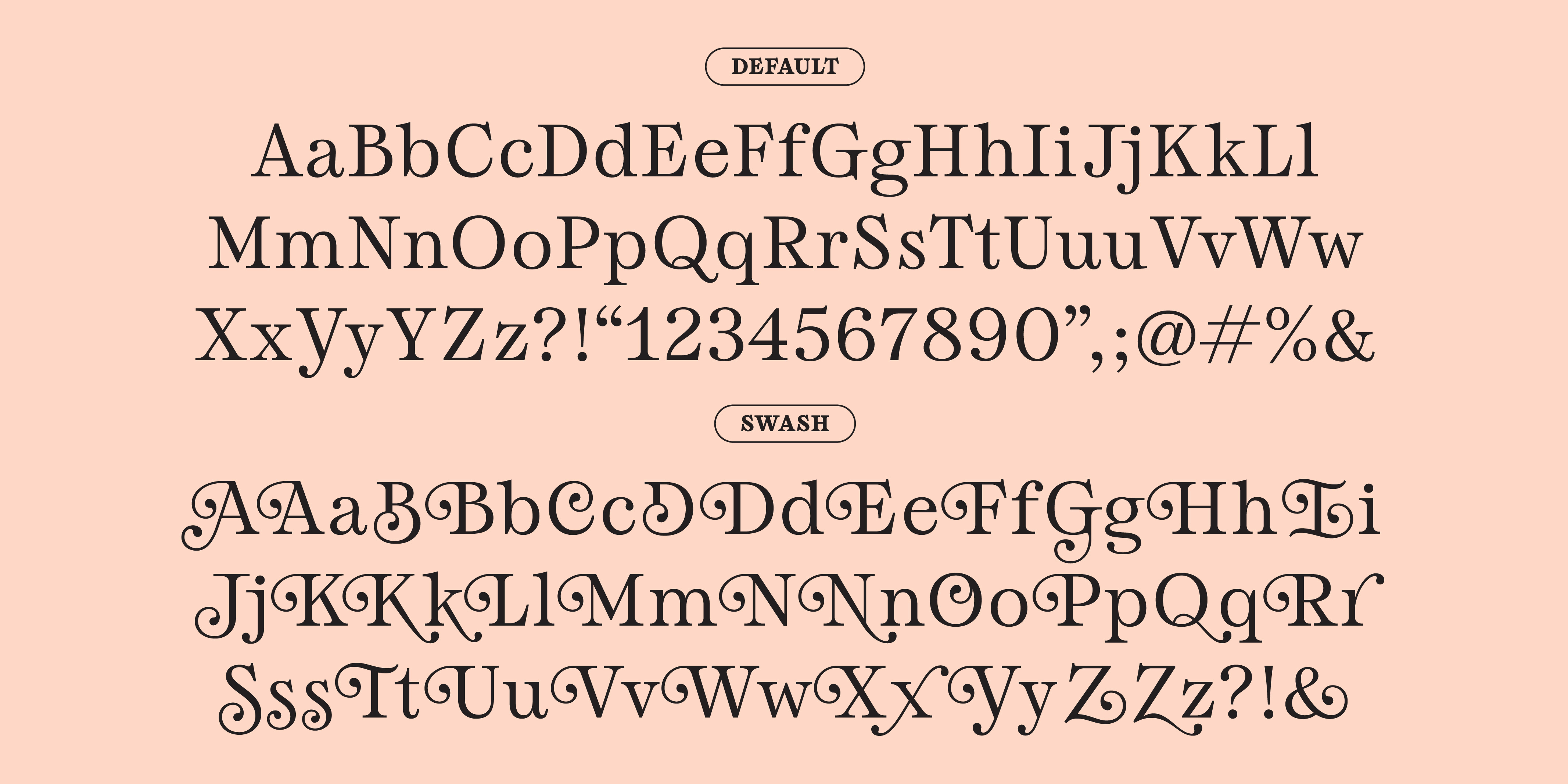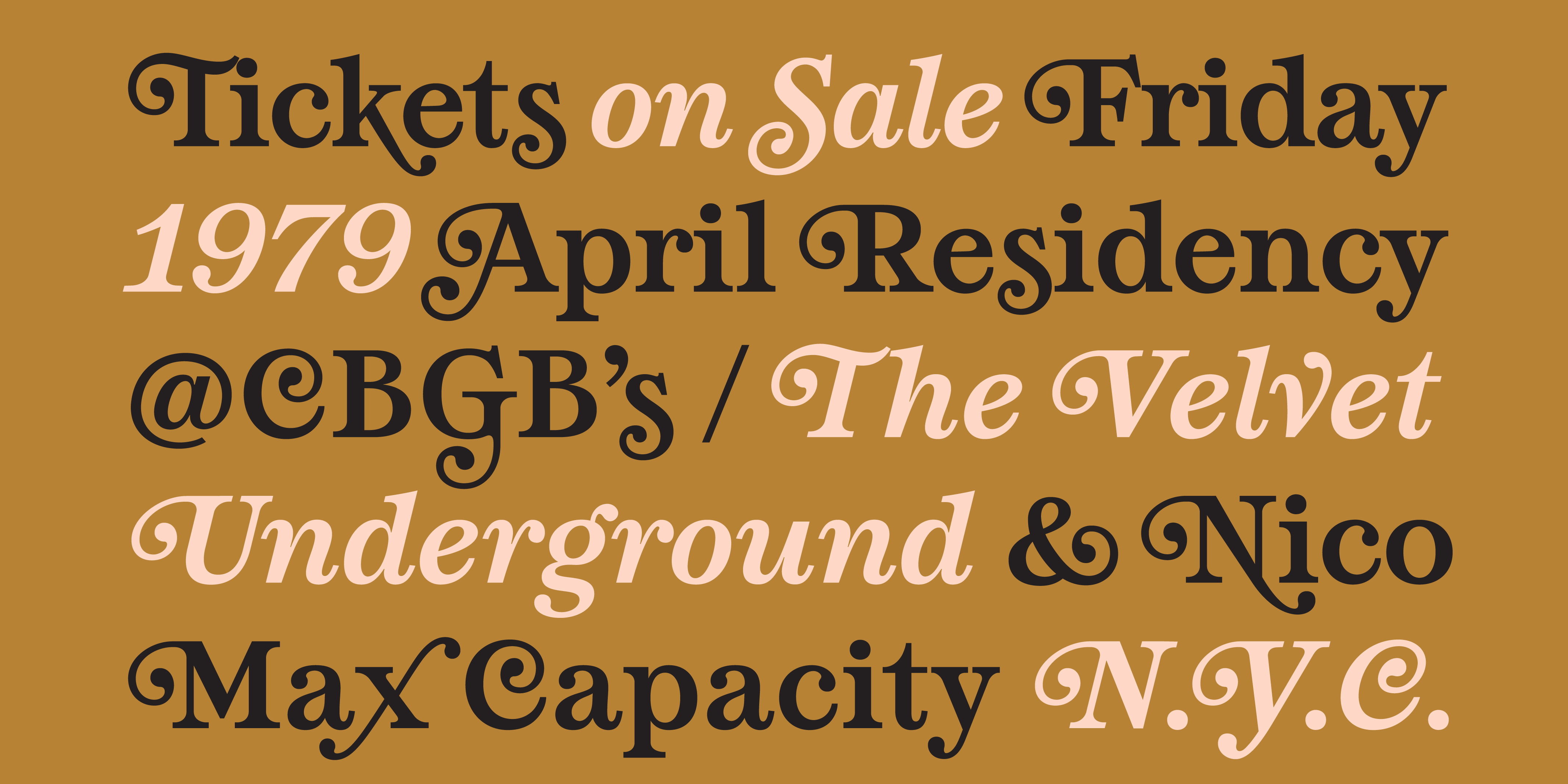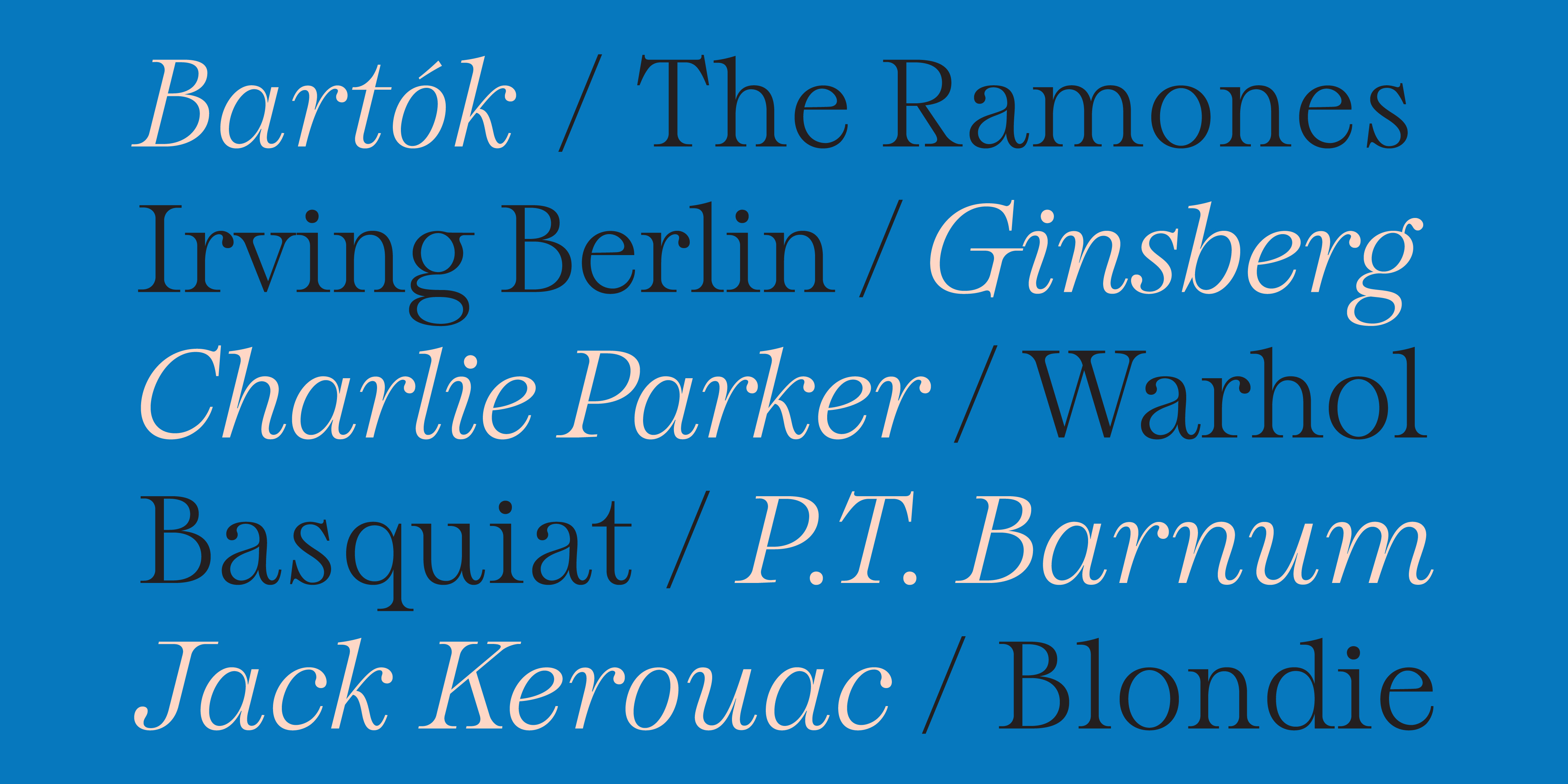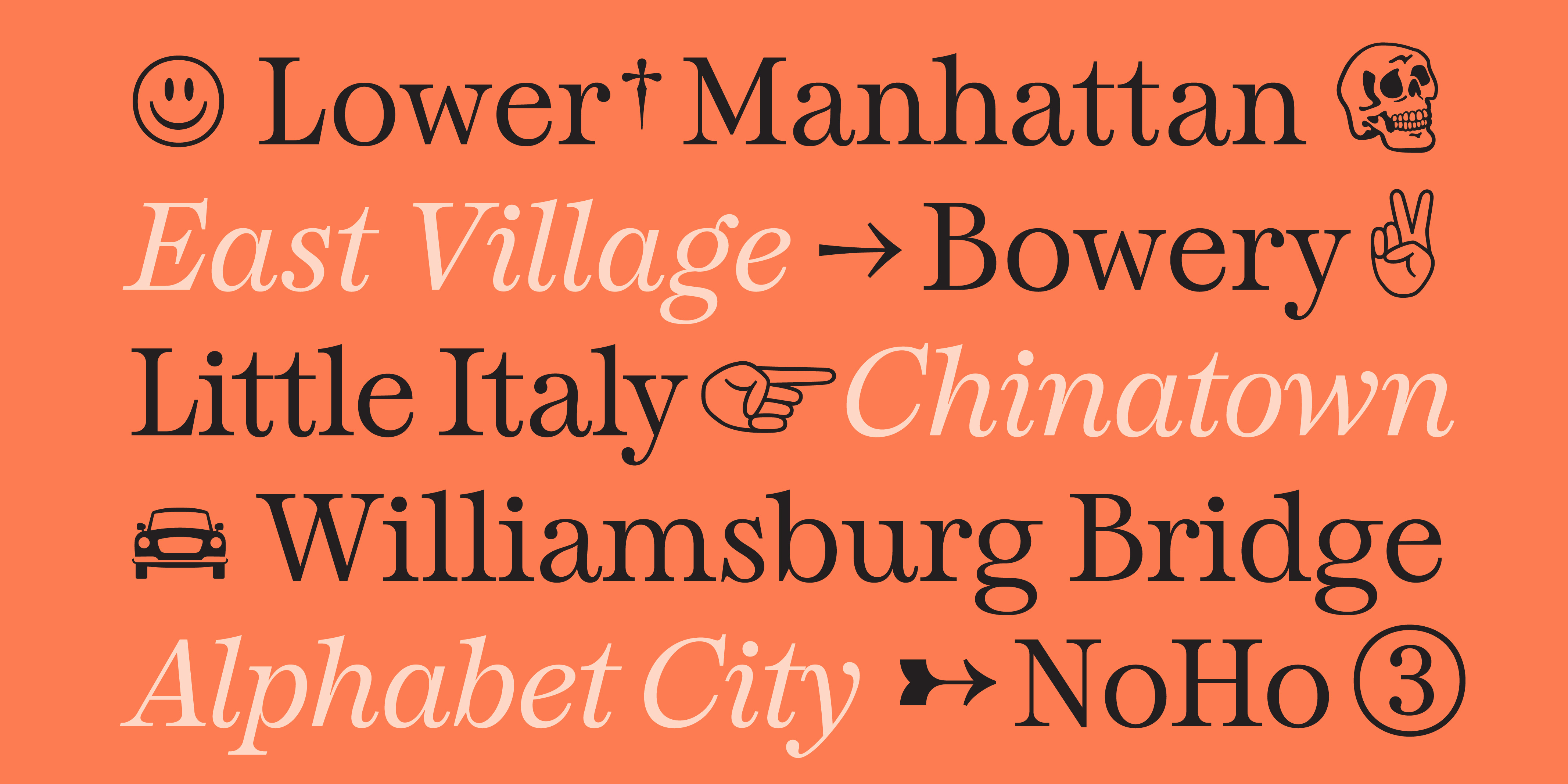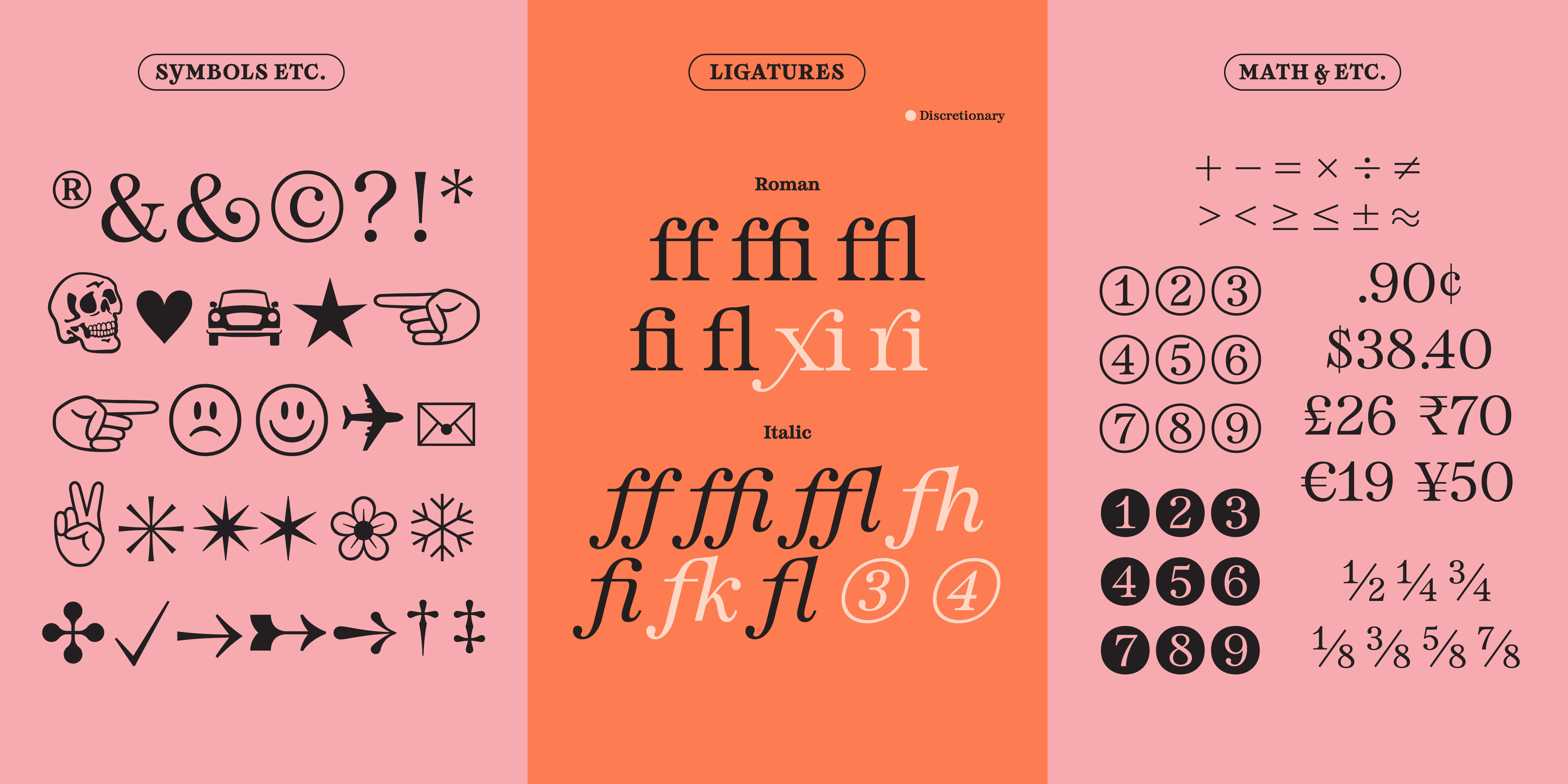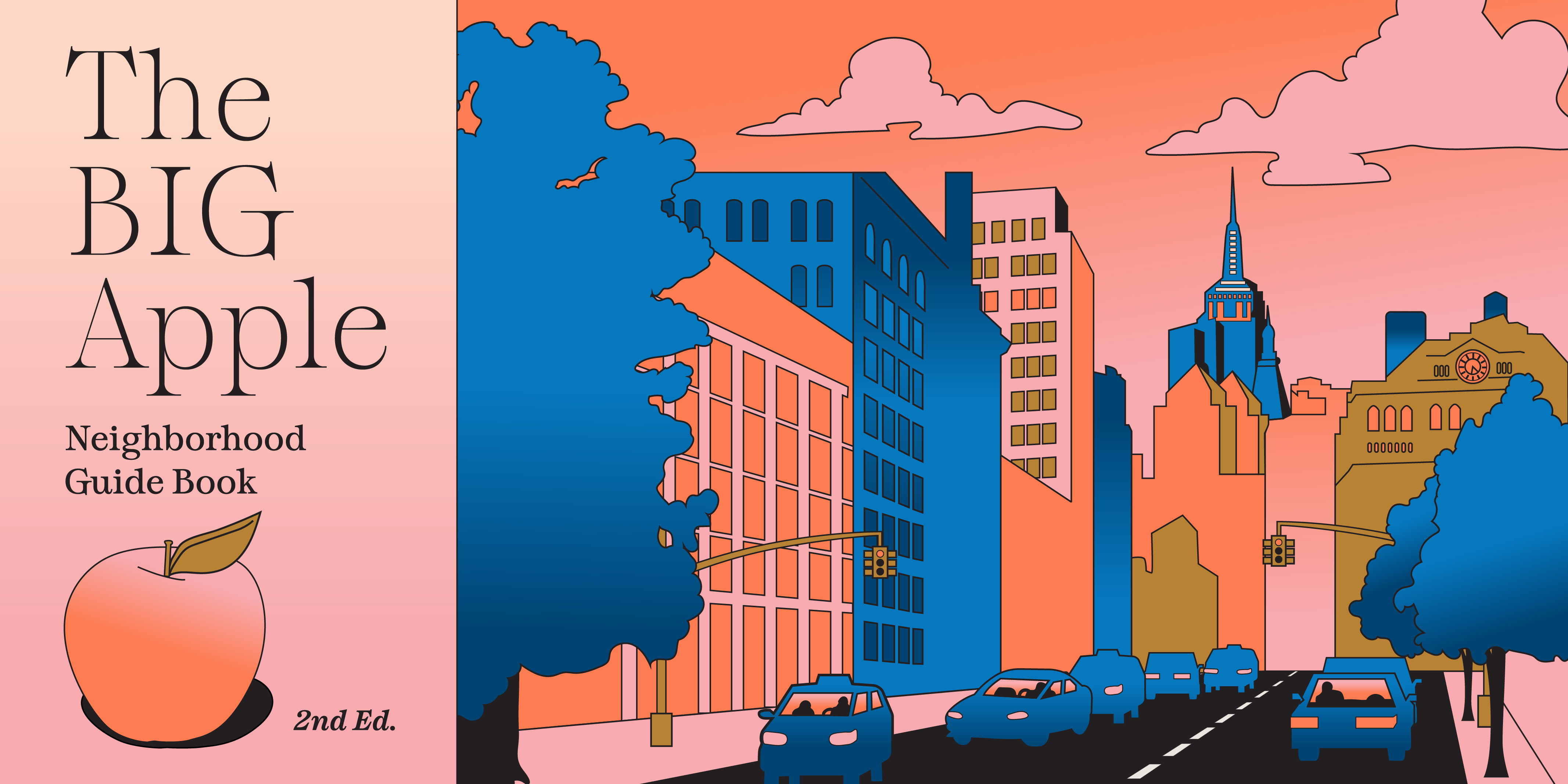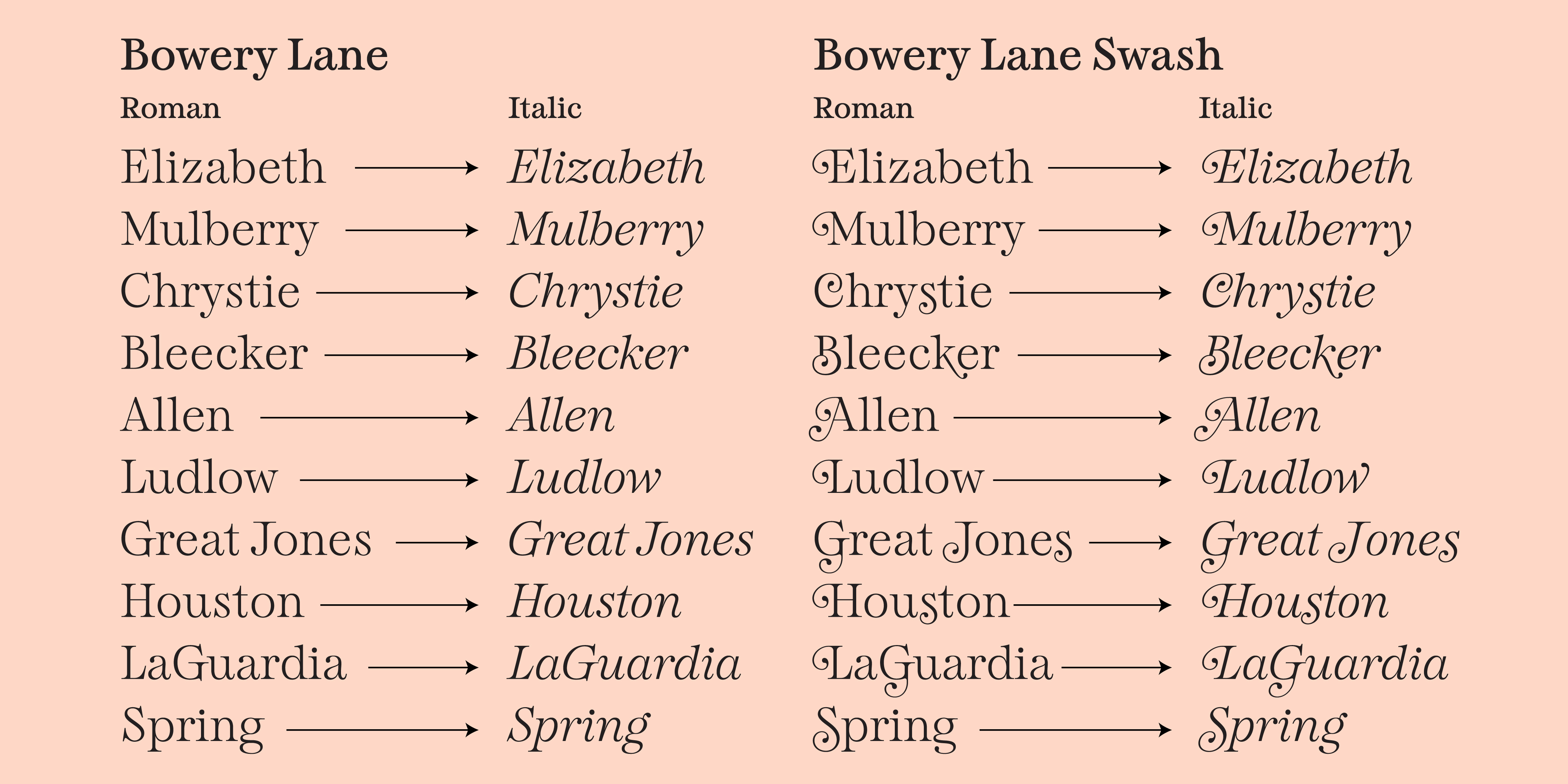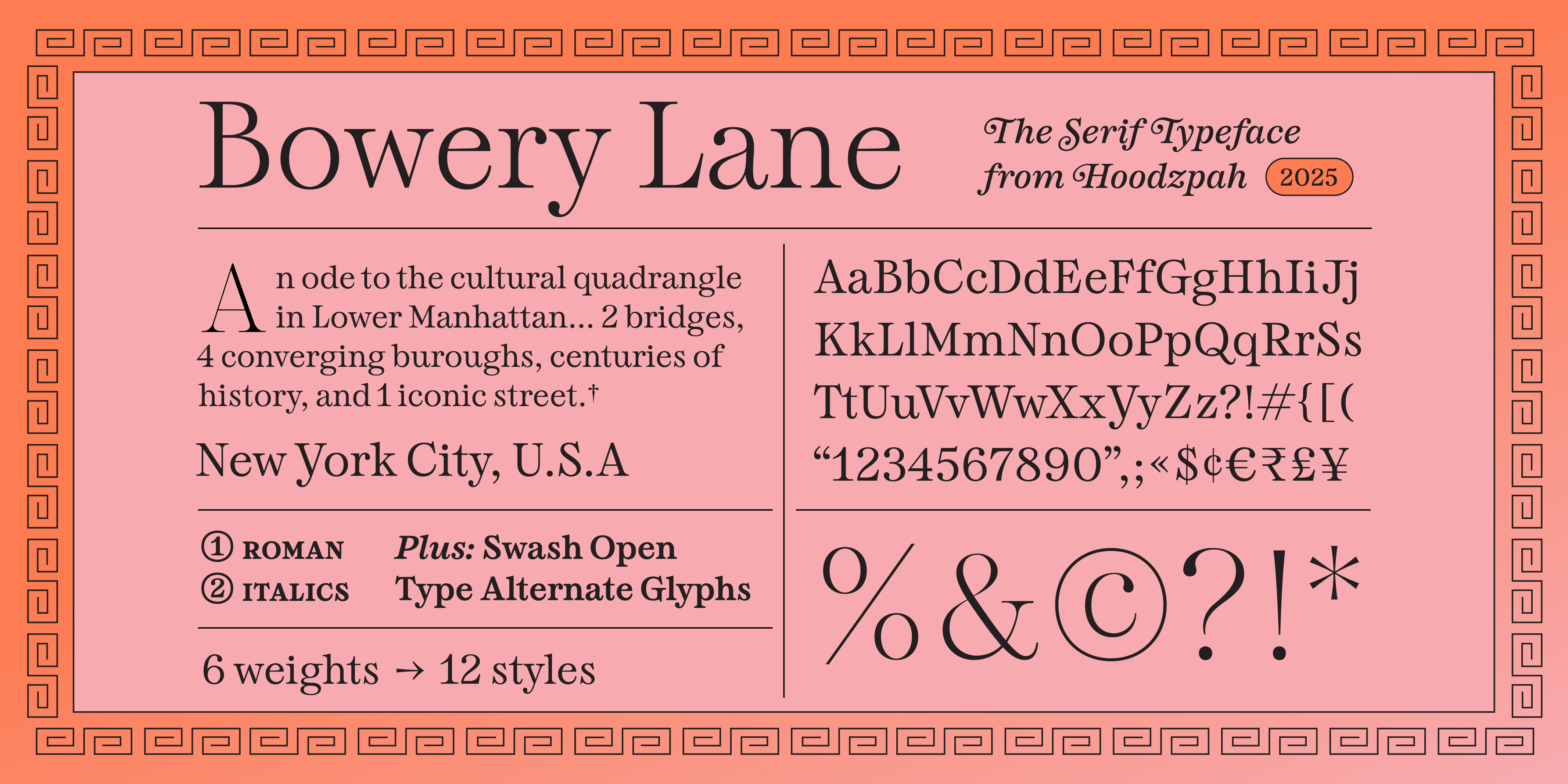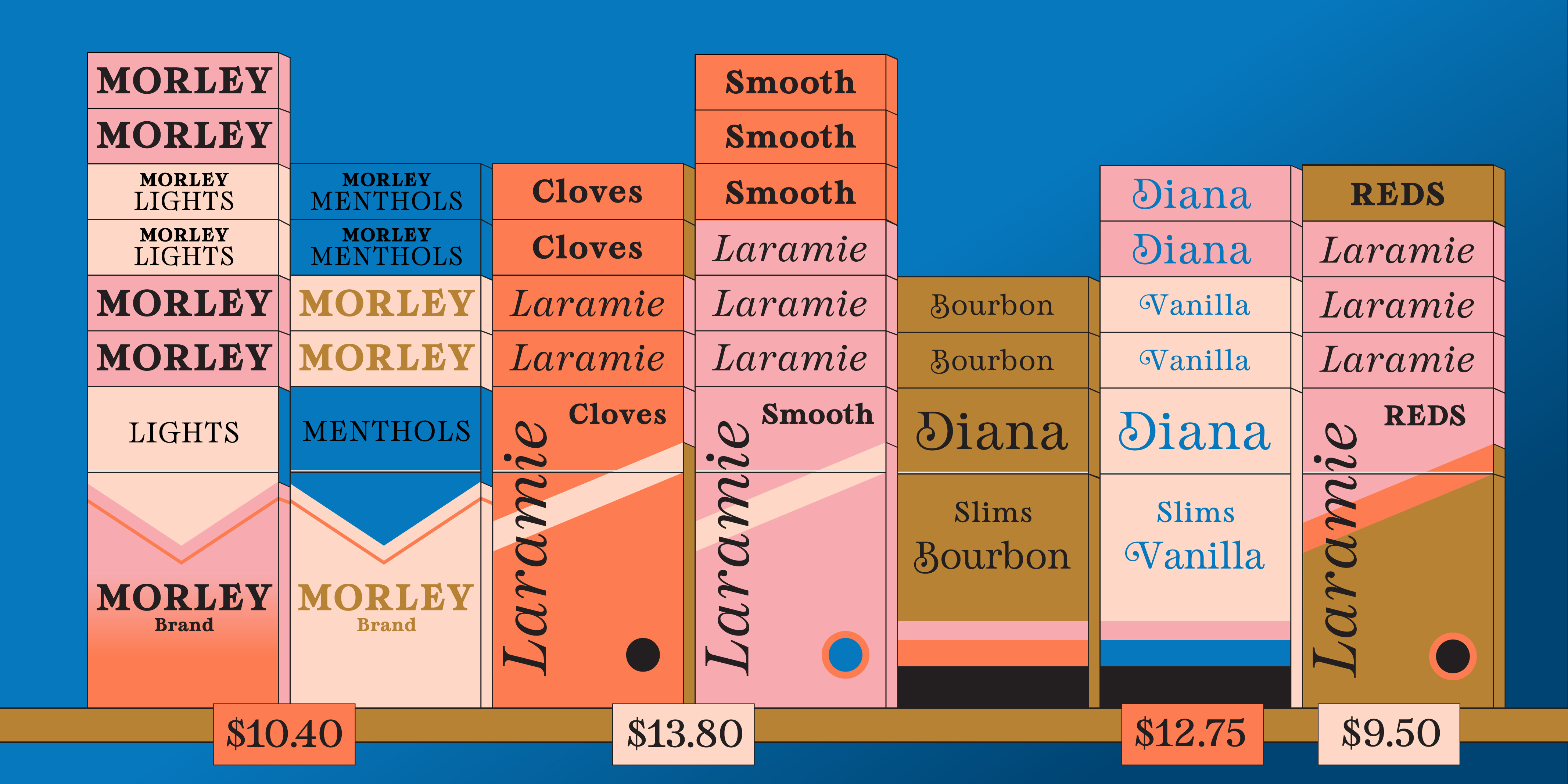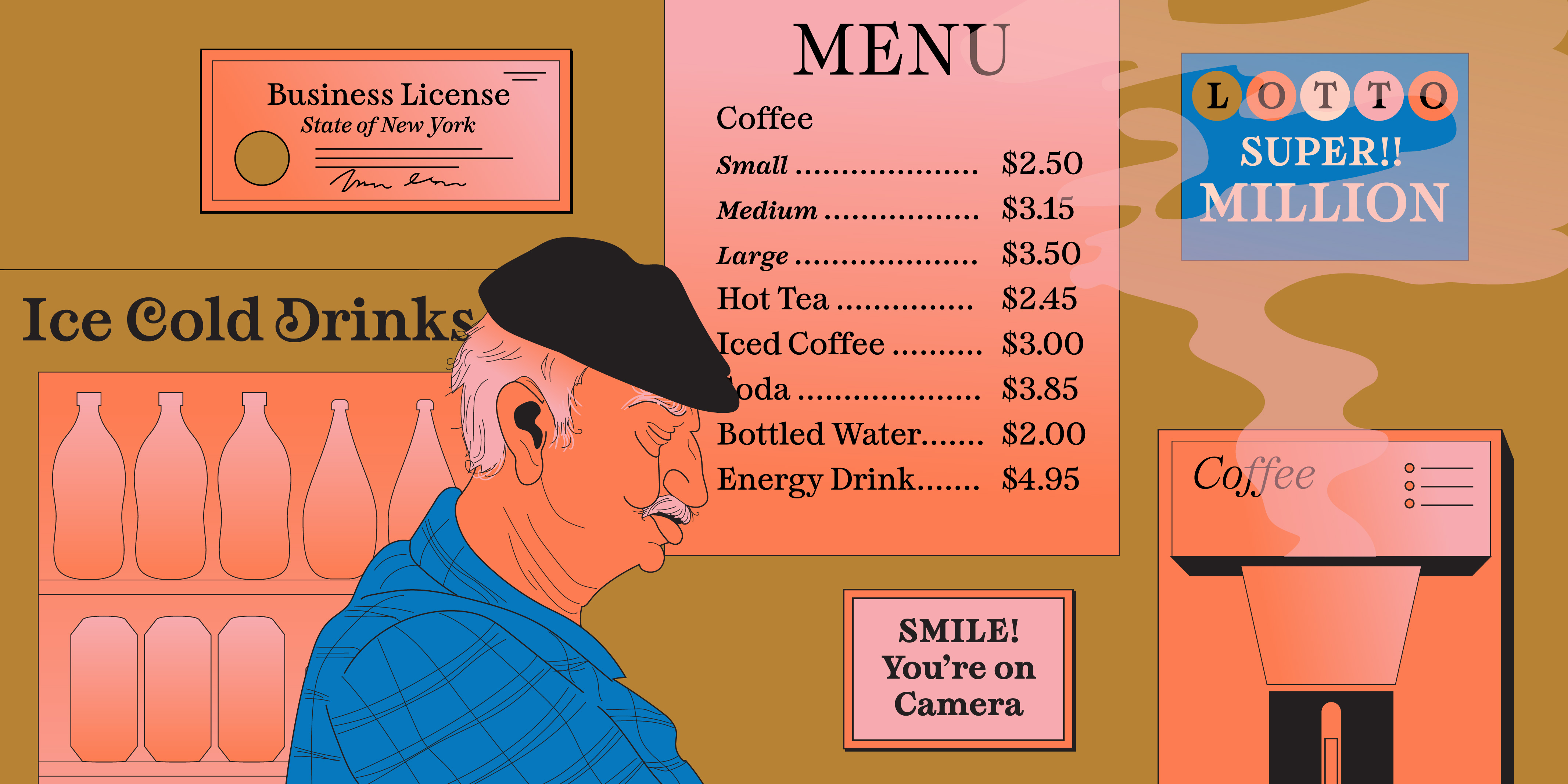
Bowery Lane
Serif
Somewhere between a Scotch Modern, Transition, and Slab serif—with curl swash alts to boot!
When you use the default character set of Bowery Lane font, it looks confident, classic, and bold, like the area of New York City the font gets its name from. The moderate contrast makes the font very usable, even at smaller sizes. But just when you think you know what Bowery is about, you turn on the curl swash alternates and feel as if you’ve stepped into the New York of You’ve Got Mail. Bowery, NYC, is a cultural quadrangle, at the intersection of four boroughs and two bridges, with centuries of history and reinventions, all emanating from one iconic street. This font aims to have a similar breadth of character and broad usability.
Bowery Lane also includes multiple swash style sets. Where Bookmania’s swashes have a relaxed, retro/nouveau feel, and Caslon’s swashes have an old money elegance, Bowery Lane’s swash style lies somewhere in the middle: round and whimsical—like the wrought iron details on the Vanderbilt Gate in Central Park. Not only does Bowery Lane offer swash alternates for the italic styles, it also offers them for the roman styles too!